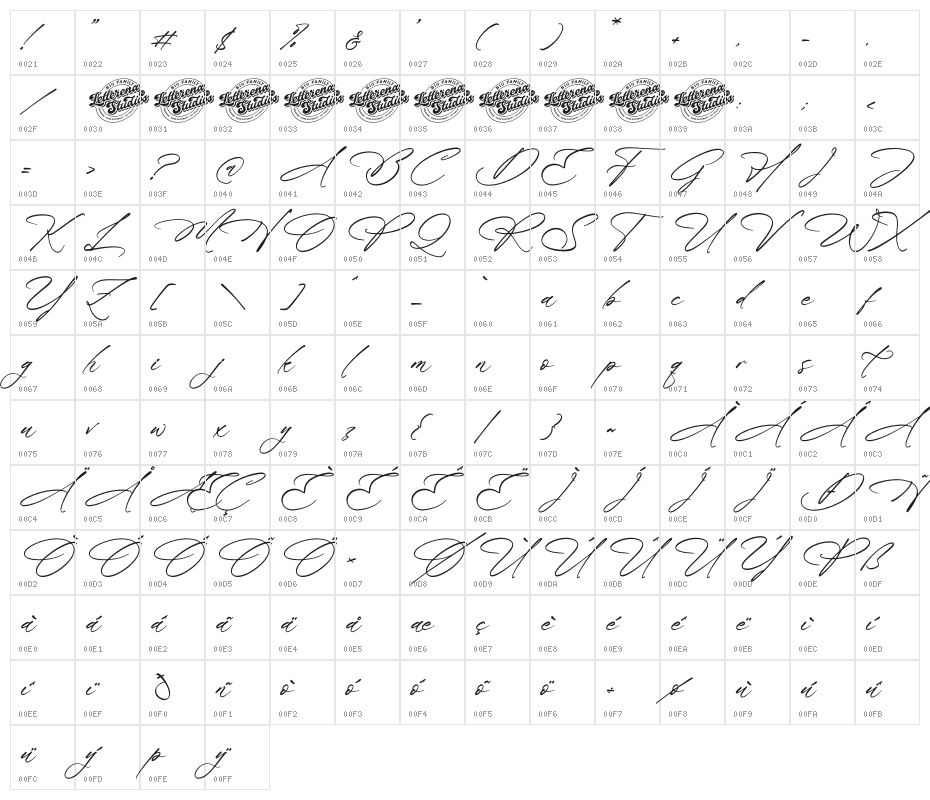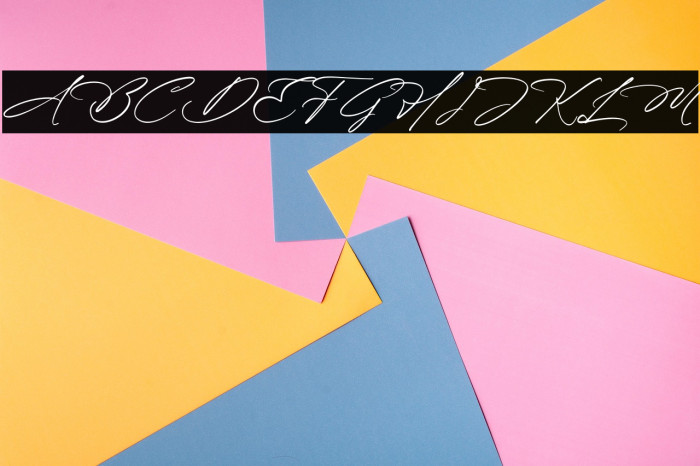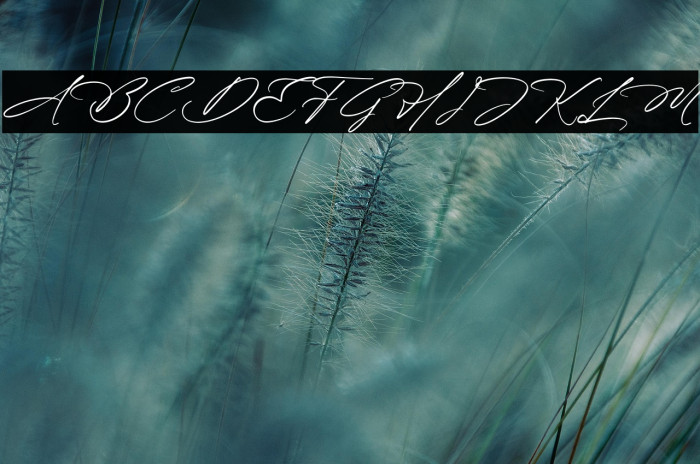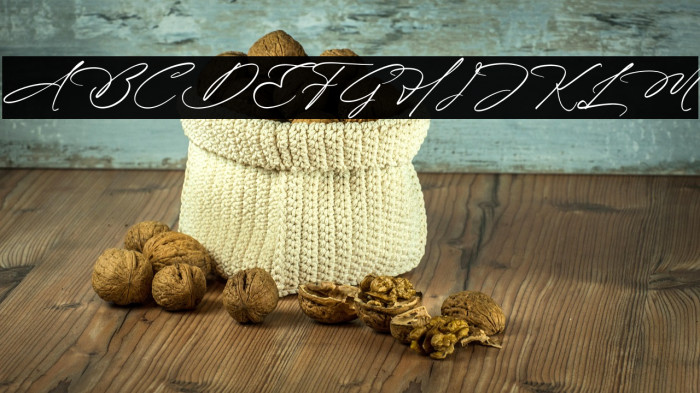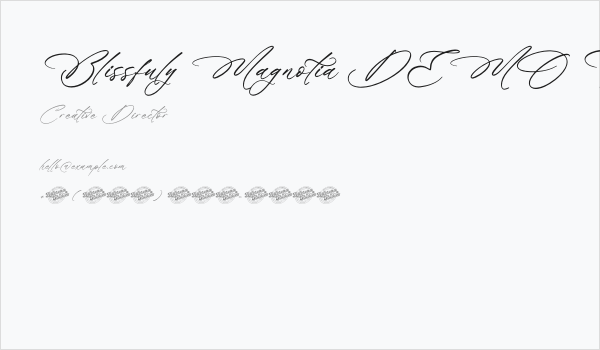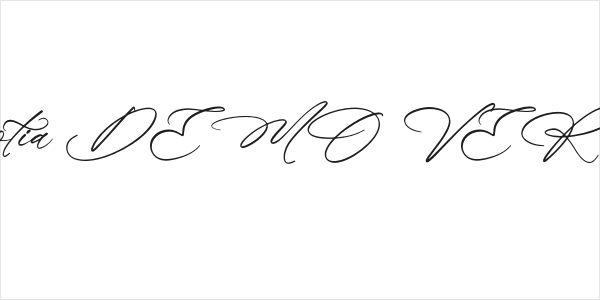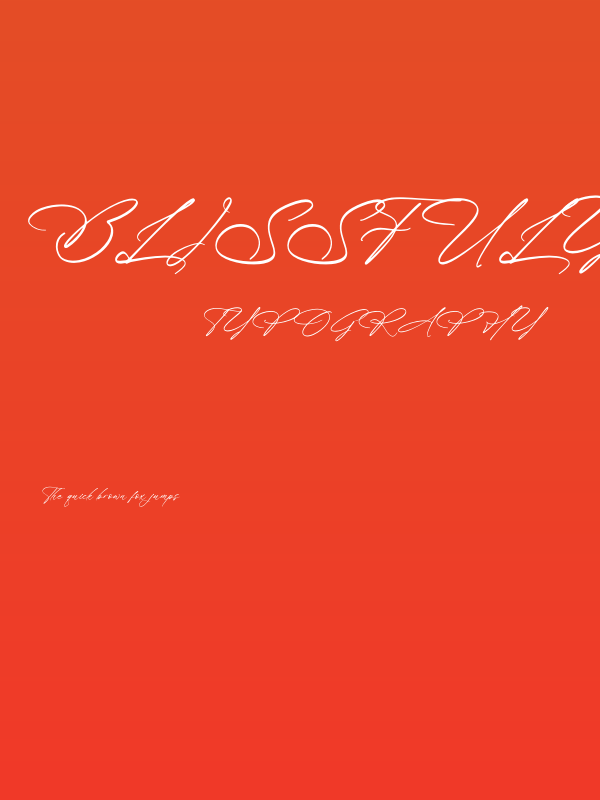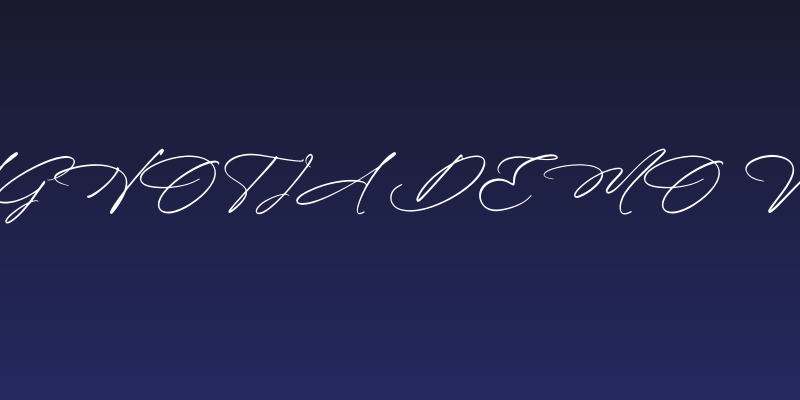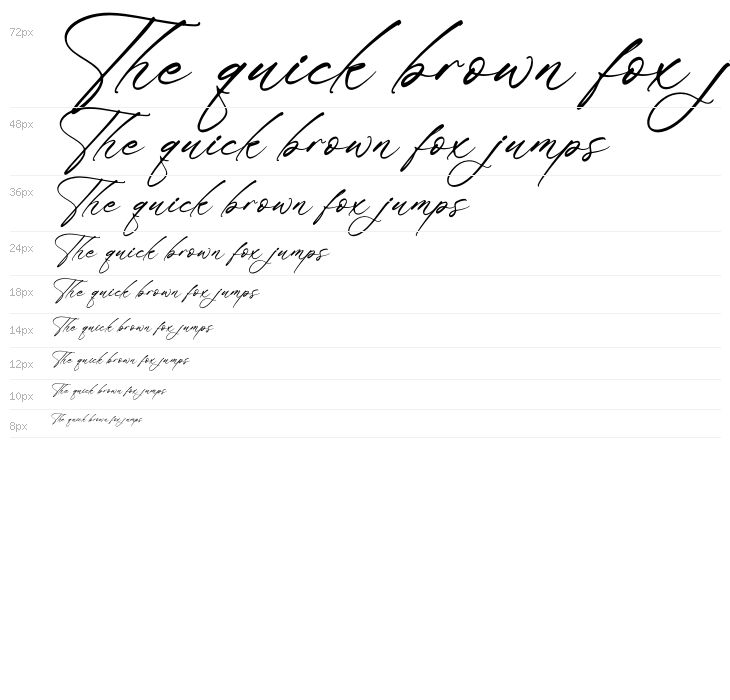
Blissfuly Magnotia DEMO VERSION Italic Font
Blissfuly Magnotia DEMO VERSION Italic Description
Elegant, flowing script font with high contrast between thick and thin strokes, featuring elongated ascenders and descenders, and a pronounced italic slant. The characters are connected in a cursive style, giving a handwritten, calligraphic appearance.
| Overall Style | Decorative, Elegant, Handwritten |
| Use Case | Logos, Invitations, Headlines |
| Proposed Projects | Wedding invitations, greeting cards, branding, elegant logos, personal stationery, event signage. |